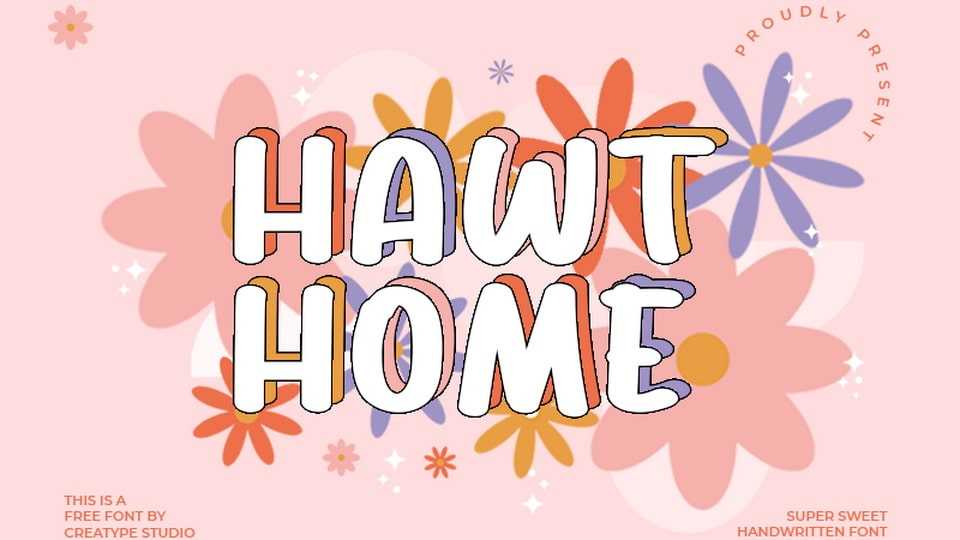
Download Hawthome font, a simple, friendly hand-lettered typeface that radiates warmth and charm, perfect for adding a personal touch to your projects.